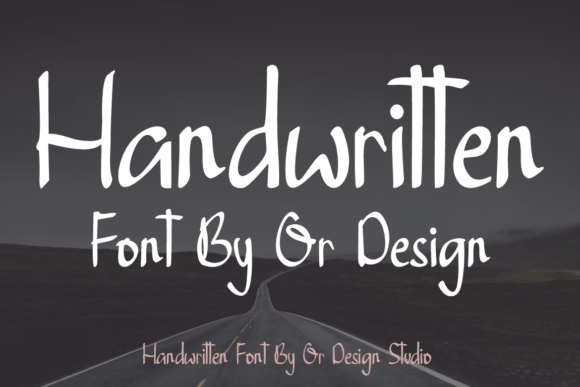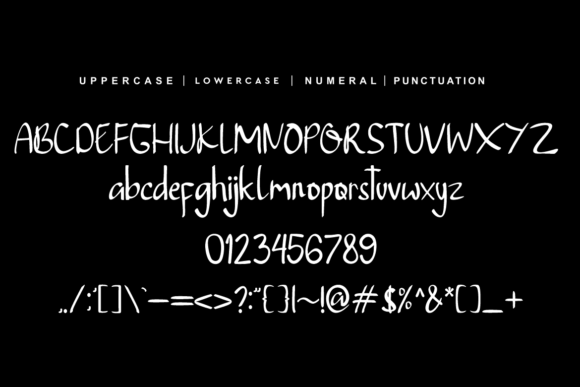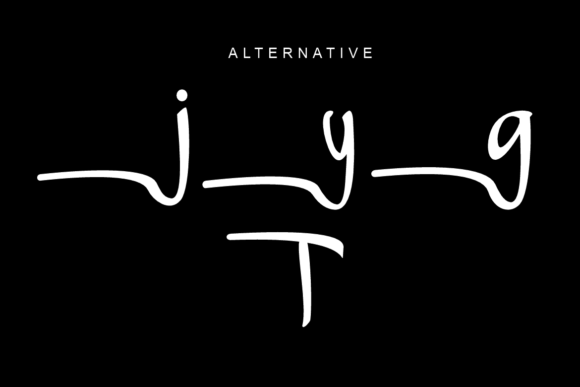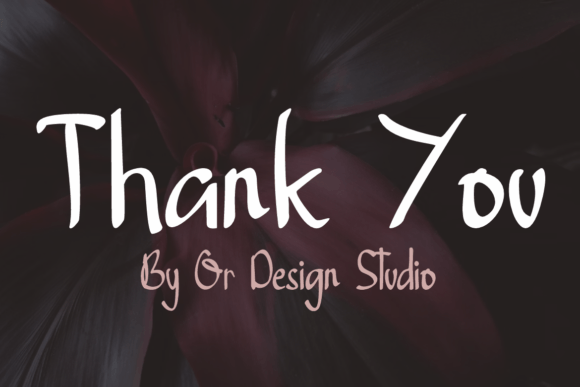
Introducing Bukiseyoka Font: Elevate Your Designs with Elegance and Charm
In the world of typography, few fonts manage to capture the essence of elegance and charm as effortlessly as Bukiseyoka Font. This mesmerizing script and handwritten typeface has been designed to add a touch of sophistication to any project, making it a perfect choice for designers and crafters looking to infuse their work with a sense of creativity and beauty.
The Beauty of Bukiseyoka Font
Bukiseyoka Font boasts fluid strokes and a natural flow that sets it apart from other typefaces. Its unique blend of script and handwritten elements creates a distinctive look that is both elegant and approachable. Whether you’re working on wedding invitations, branding materials, or personal designs, Bukiseyoka Font is the perfect choice to add a touch of sophistication and whimsy.
Key Features of Bukiseyoka Font
- Fluid Strokes: Bukiseyoka Font features fluid strokes that give it a natural, handwritten feel.
- Elegant and Charming: The font’s unique blend of script and handwritten elements makes it perfect for adding a touch of elegance and charm to any project.
- Versatile: Bukiseyoka Font can be used for a wide range of projects, from wedding invitations and branding materials to personal designs and crafts.
- Easy to Read: Despite its elegant and cursive nature, Bukiseyoka Font remains easy to read, making it perfect for body text and headings.
Uses of Bukiseyoka Font
Bukiseyoka Font is a versatile typeface that can be used for a wide range of projects. Here are some ideas to get you started:
- Wedding Invitations: Add a touch of elegance and sophistication to your wedding invitations with Bukiseyoka Font.
- Branding Materials: Use Bukiseyoka Font to create unique and memorable branding materials, such as logos, business cards, and brochures.
- Personal Designs: Bukiseyoka Font is perfect for personal designs, such as journals, planners, and gift tags.
- Crafts: Use Bukiseyoka Font to add a personal touch to your crafts, such as scrapbooking, card making, and DIY projects.
Tips for Using Bukiseyoka Font
Here are some tips for getting the most out of Bukiseyoka Font:
- Pair with Other Fonts: Bukiseyoka Font pairs well with other fonts, such as sans-serif and serif typefaces. Experiment with different combinations to find the perfect look for your project.
- Use for Headings and Body Text: Bukiseyoka Font is suitable for both headings and body text. Use it to create a cohesive look throughout your project.
- Experiment with Colors: Bukiseyoka Font looks great in a variety of colors. Experiment with different colors to find the perfect shade for your project.
Bukiseyoka Font is a beautiful and versatile typeface that can add a touch of elegance and charm to any project. With its fluid strokes and natural flow, this font is perfect for designers and crafters looking to infuse their work with a sense of creativity and beauty. Whether you’re working on wedding invitations, branding materials, or personal designs, Bukiseyoka Font is the perfect choice to make every word a work of art.